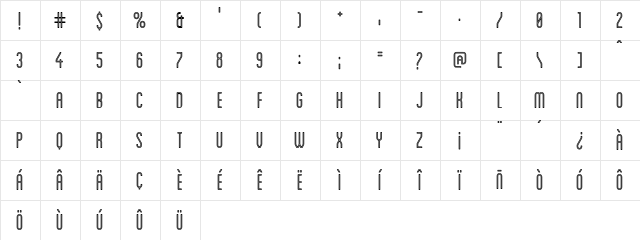
Blanch Condensed Inline
Style: Condensed Inline
Foundry: Atipus
Designer: Atipus
Year: 2011
Blanch Family
Design Context for Blanch
Blanch is built around its visual character rather than neutral utility - its distinctive forms are designed to make an impression at display sizes.
Font Pairing: Pair with a clean neutral sans-serif for body copy to let Blanch's character lead without overwhelming the composition.
Pro Tip: Use Blanch exclusively at display sizes - it was designed to be seen, not read at length. Let a neutral companion handle body copy.